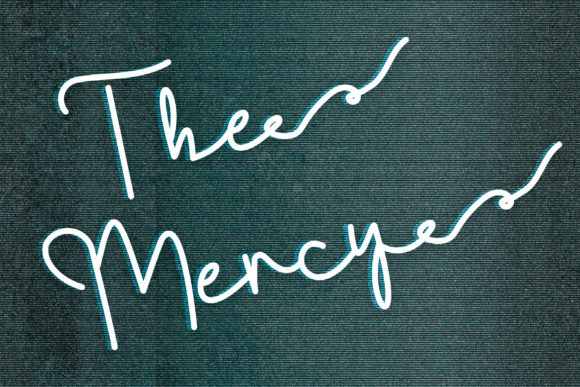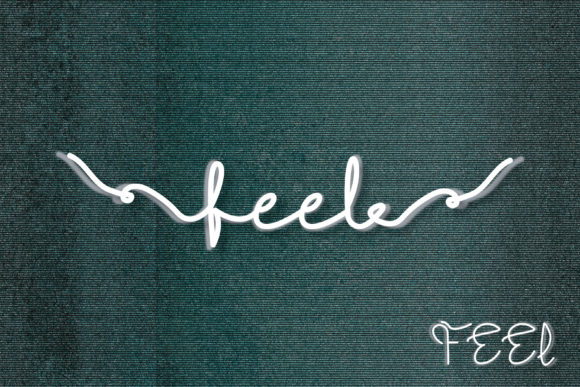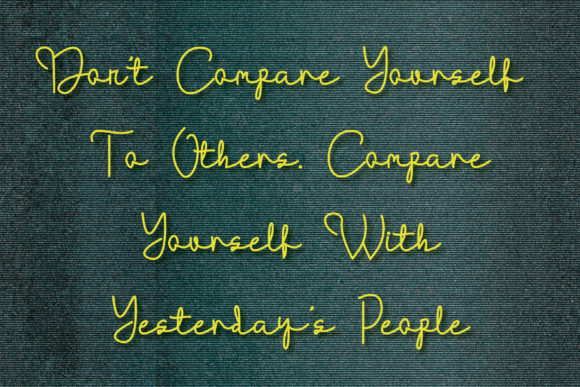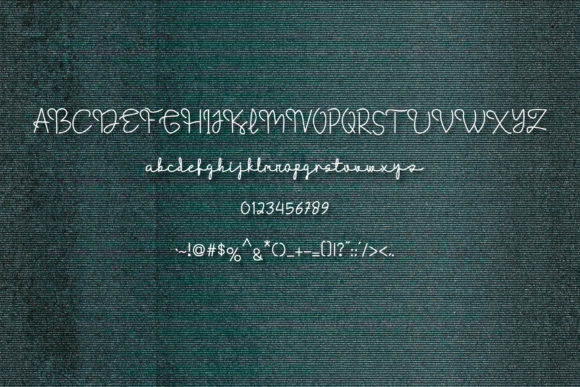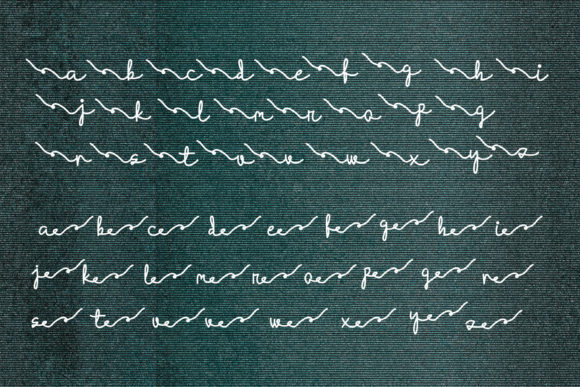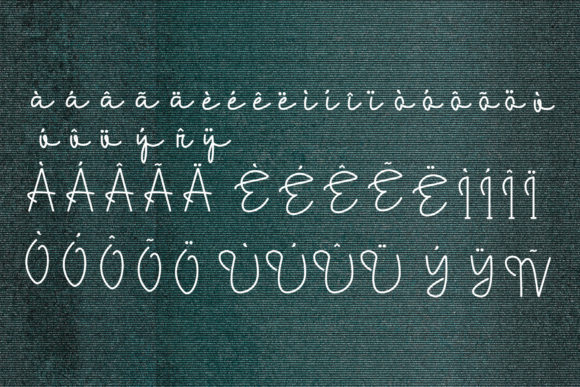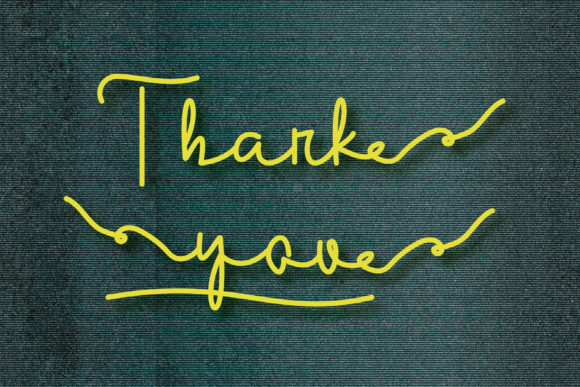
The Mercy Font
About The Mercy Font
Introducing “The Mercy,” a fun and flowing handwritten font that brings a sense of joy and originality to your designs. With its playful and dynamic style, The Mercy is the perfect choice to add a touch of creativity and uniqueness to your creative projects.
The Mercy’s lively and fluid letterforms create a sense of movement and energy, making it ideal for designs that aim to stand out and make a statement. Whether you’re working on branding materials, logos, posters, social media graphics, or any other design project, The Mercy adds a delightful and eye-catching element that captures attention.
The versatility of The Mercy allows it to adapt to various design themes and purposes. Whether you’re going for a modern and edgy look, a whimsical and playful vibe, or a bold and impactful design, The Mercy effortlessly complements your vision and enhances the overall impact of your designs.
One of the unique features of The Mercy is its extensive set of glyphs and swashes, which are easily accessible thanks to its PUA encoding. This means you can effortlessly access all the additional characters and decorative elements to add even more flair and creativity to your designs. The wide range of swashes and glyphs provide endless opportunities for customization and personalization, allowing you to create truly original and outstanding designs.
The Mercy’s legible and balanced letterforms ensure that your message is conveyed clearly and effectively. Its flowing and connected strokes create a sense of harmony, making it easy to read and engaging to the eye. Whether used in headlines, titles, or body text, The Mercy maintains its playful and flowing nature, adding a touch of fun to your design compositions.
Incorporating The Mercy into your designs allows you to infuse them with a sense of originality and creativity. Whether you’re a graphic designer, a DIY enthusiast, or someone looking to add a unique touch to their projects, The Mercy is here to help you create outstanding and memorable designs.
In conclusion, The Mercy is a fun and flowing handwritten font that adds a sense of joy and originality to your designs. With its playful style, extensive set of glyphs and swashes, and legible letterforms, The Mercy is the perfect font to make your designs stand out and capture attention. Embrace The Mercy and let it bring a touch of fun and creativity to your next design project!